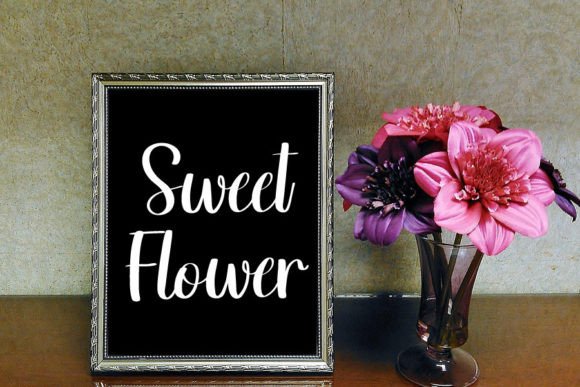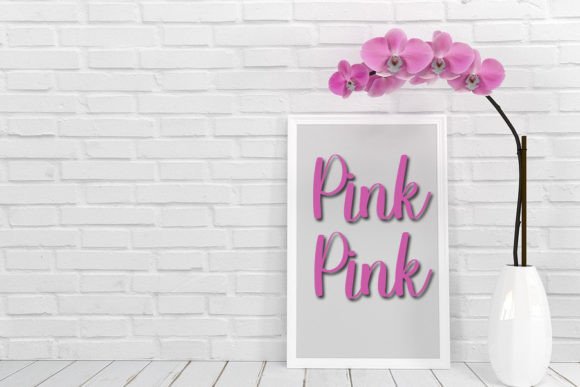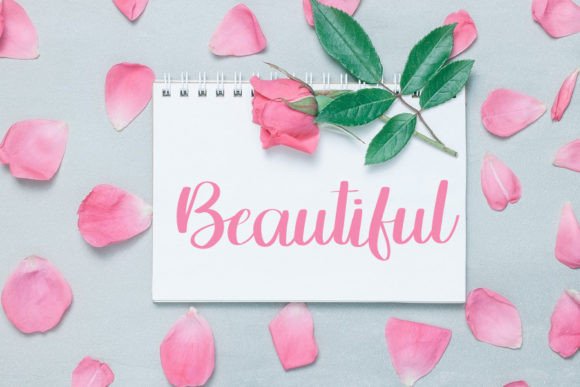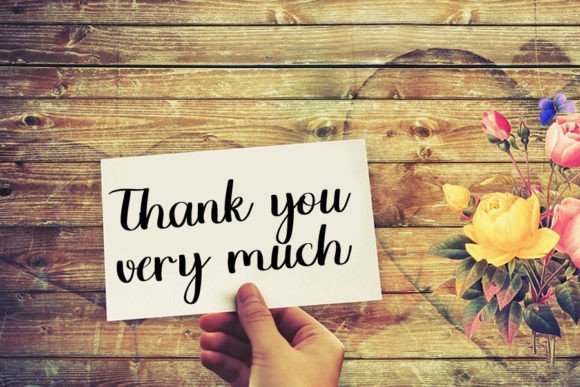
Introducing Dropping Font: Elevate Your Designs with a Fresh and Beautiful Handwritten Style
In the world of design, fonts play a crucial role in conveying the message and aesthetic of a brand or project. For designers and crafters looking for a unique and simple yet impactful font, Dropping Font is an excellent choice. This fresh and beautiful handwritten font is perfect for various design purposes, including YouTube banners, cover logo mockups, wedding invitations, ID cards, flyers, and crafts.
What Makes Dropping Font Stand Out?
Dropping Font is not just another font; it’s a design element that can elevate your projects to the next level. Here are some key features that make it stand out:
- Fresh and Beautiful Handwritten Style: Dropping Font boasts a modern and elegant handwritten look that can add a personal touch to your designs.
- Versatility: Whether you’re working on a YouTube banner, a wedding invitation, or a craft project, this font fits perfectly, ensuring your designs look cohesive and professional.
- Simplicity and Uniqueness: The font strikes a perfect balance between being simple and unique, making your designs stand out without being overly complicated.
How Dropping Font Can Benefit Your Design Projects
By incorporating Dropping Font into your design projects, you can experience several benefits:
- Professional Look: The font’s elegant style can give your projects a professional and polished look, which is crucial for attracting and retaining audience attention.
- Enhanced Creativity: With Dropping Font, you can explore a wide range of creative possibilities, from digital designs to print materials, without compromising on style or readability.
- Brand Consistency: For businesses, using a consistent font across all platforms can strengthen brand identity. Dropping Font’s versatility makes it an excellent choice for branding projects.
Ideas for Using Dropping Font in Your Designs
The possibilities are endless when it comes to using Dropping Font. Here are some ideas to get you started:
- YouTube Banners: Create eye-catching banners that reflect your channel’s personality and invite viewers to subscribe.
- Wedding Invitations: Add a touch of elegance and romance to your wedding invitations, making them memorable for your guests.
- ID Cards: Design professional and stylish ID cards for businesses, events, or conferences.
- Flyers and Brochures: Stand out from the competition with beautifully designed marketing materials that capture attention.
- Crafts: From DIY projects to professional crafting, Dropping Font can add a personalized touch to your creations.
Tips for Maximizing the Impact of Dropping Font
To get the most out of Dropping Font, consider the following tips:
- Pair with Complementary Fonts: Experiment with font combinations to find the perfect balance for your design.
- Adjust Size and Color: Play with different sizes and colors to highlight key information or create visual hierarchy.
- Consider Legibility: Ensure that your text remains readable, especially when using the font for body text or detailed information.
Dropping Font is more than just a font; it’s a design tool that can transform your projects with its fresh, beautiful, and handwritten style. Its versatility, simplicity, and uniqueness make it an excellent choice for designers and crafters looking to elevate their designs. Whether you’re working on a professional project or a personal craft, Dropping Font can help you achieve your creative goals and make your designs stand out.